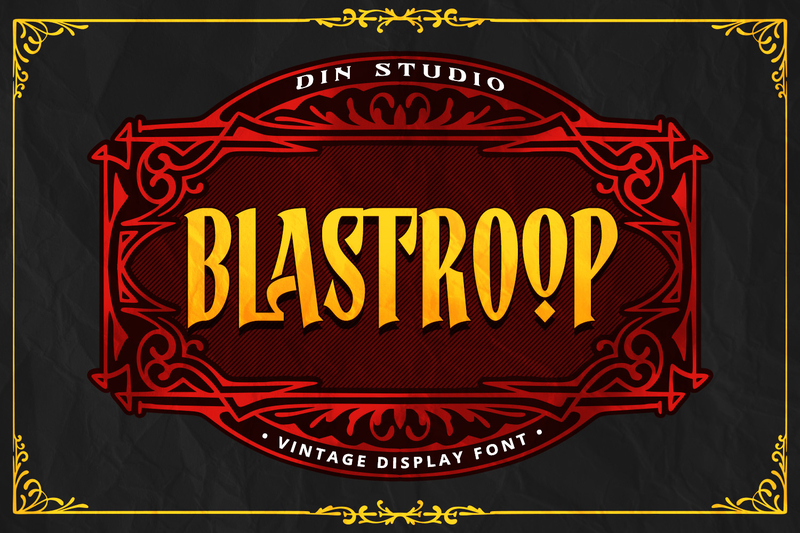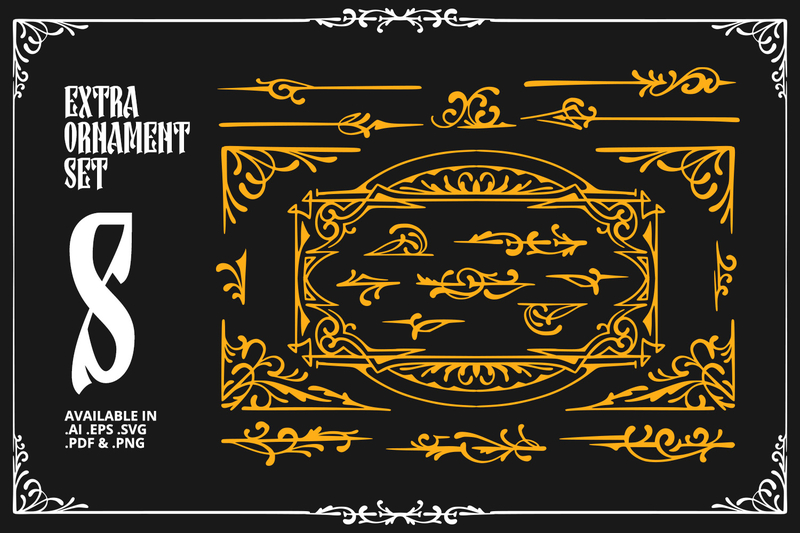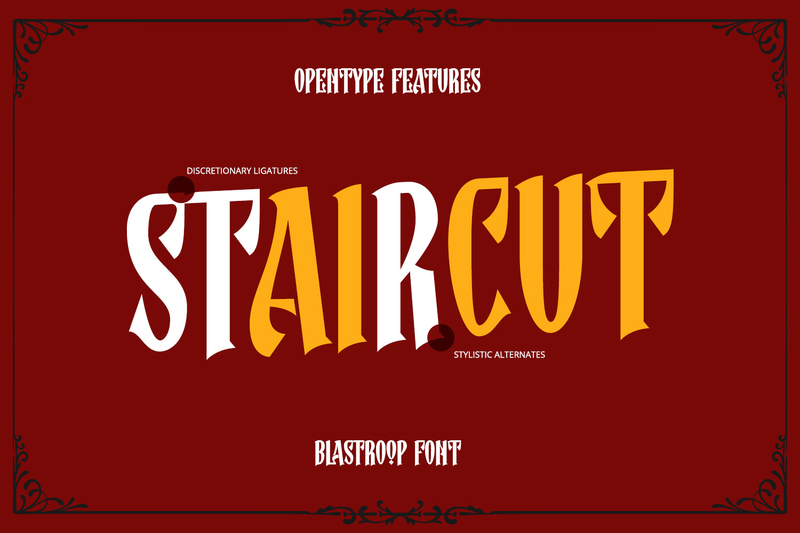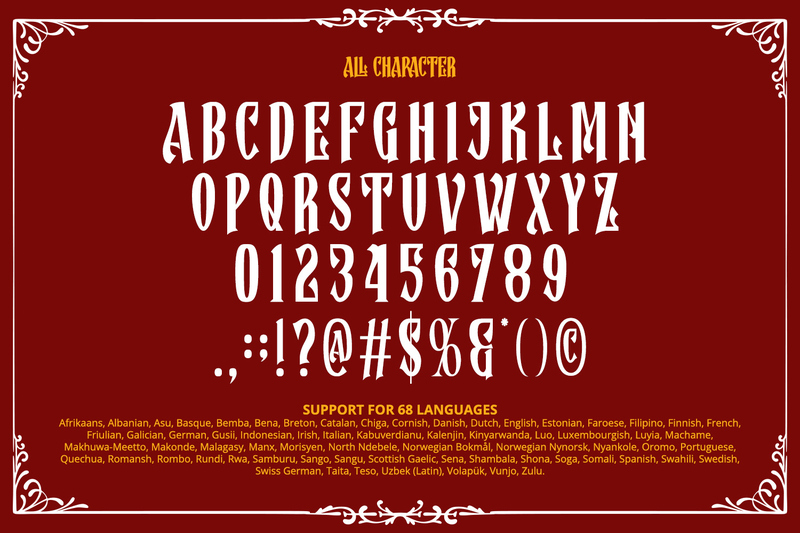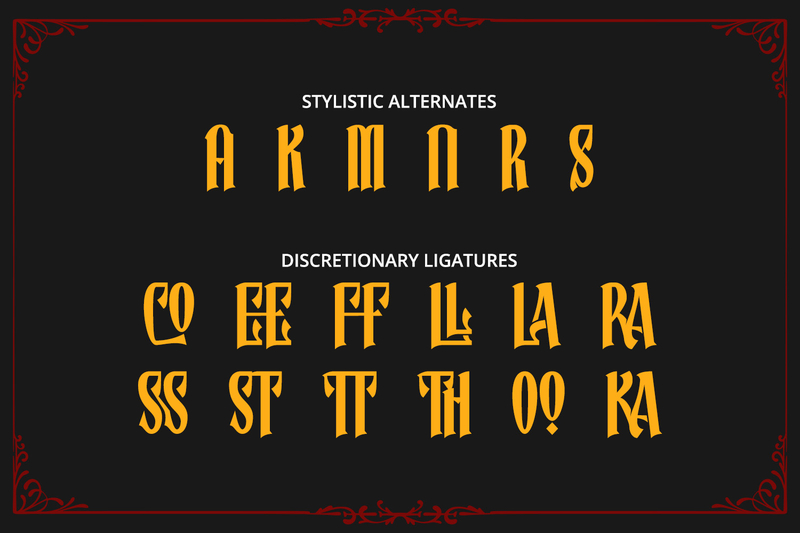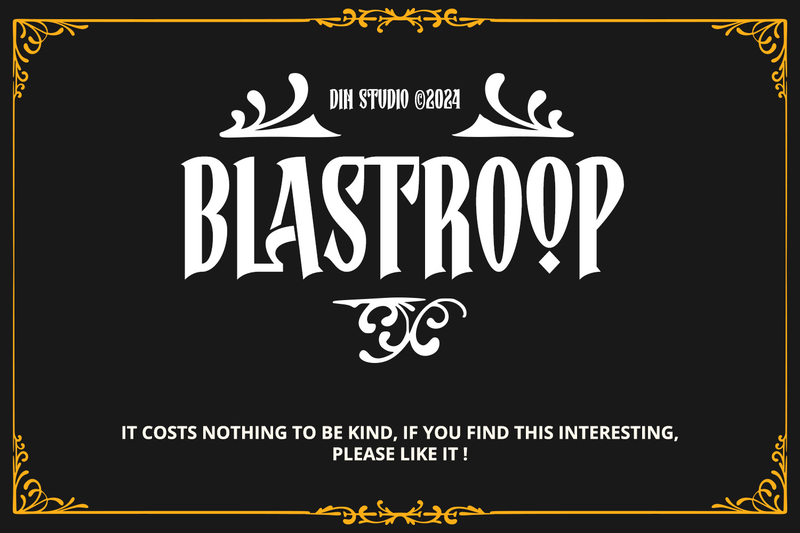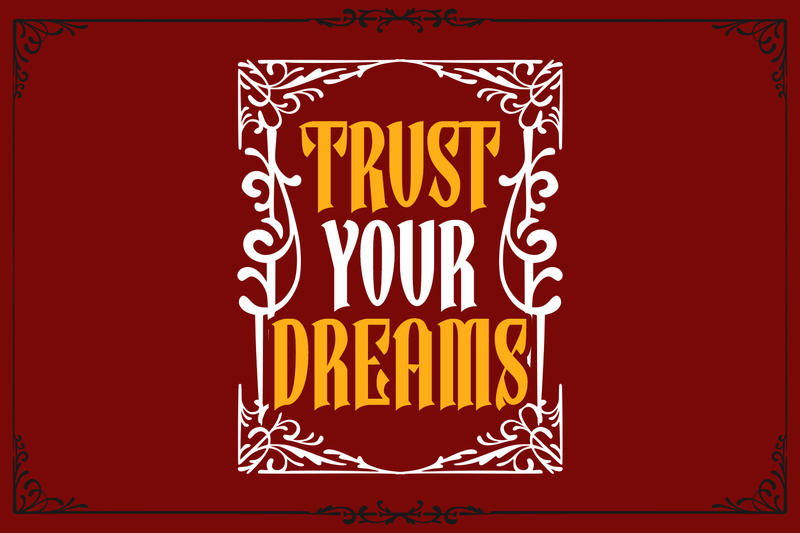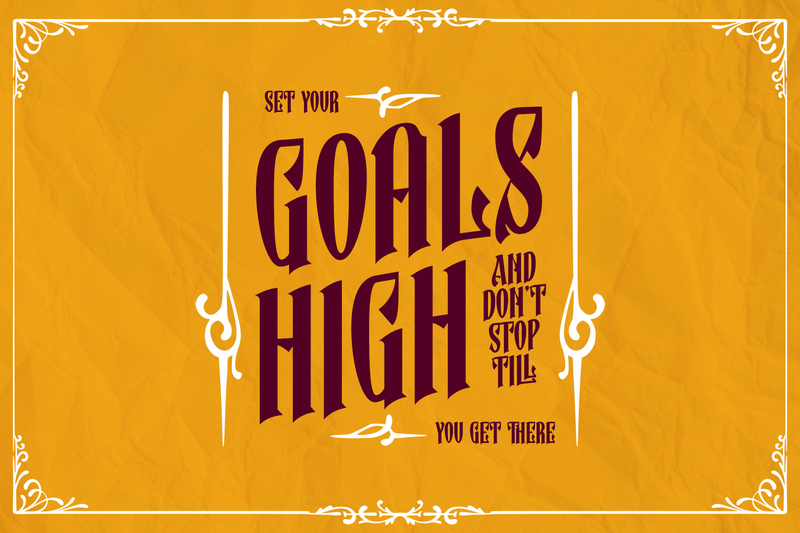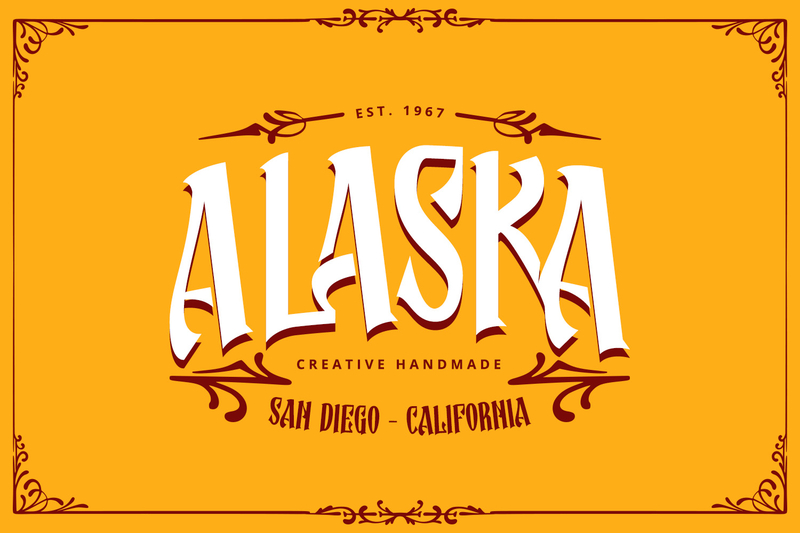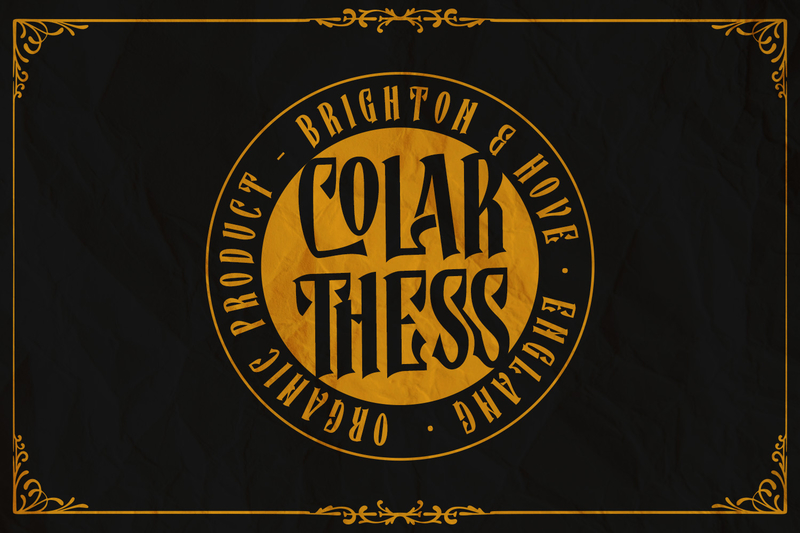
Introducing Blastroop – a vintage-inspired font that brings a touch of classic charm to your designs. Crafted in all capital letters with a light, non-bold weight, Blastroop offers a timeless appeal with its consistent proportions. The subtle, irregular outlines, featuring gentle curves and angles, add a handcrafted feel that enhances its vintage aesthetic. As an extra, this font gives ornaments. In addition, enjoy the features here.
- Alternates
- Multilingual Supports
Blastroop fits in logos, posters, flyers, branding materials, print media, editorial layouts, and many more designs. Find out more ways to use this font by taking a look at the font preview.